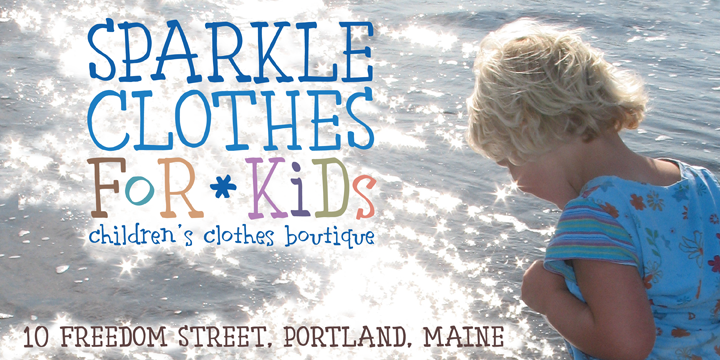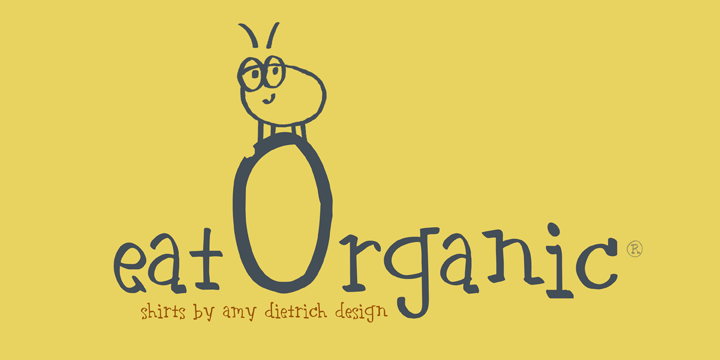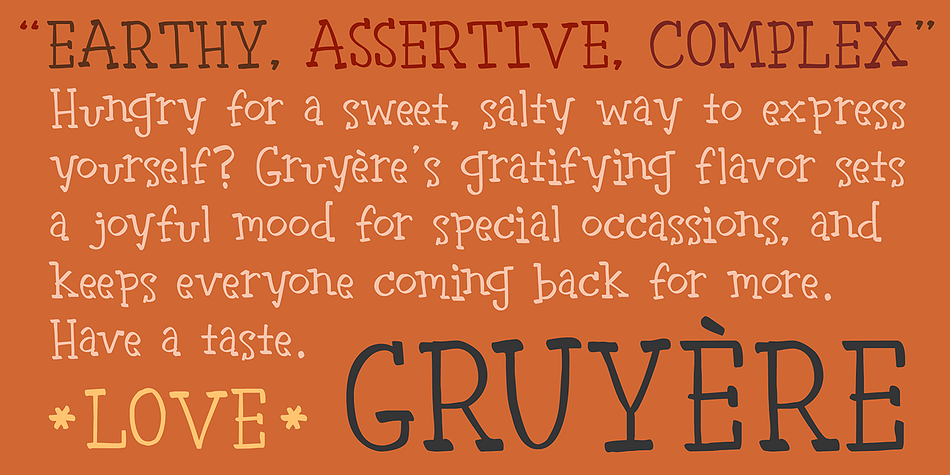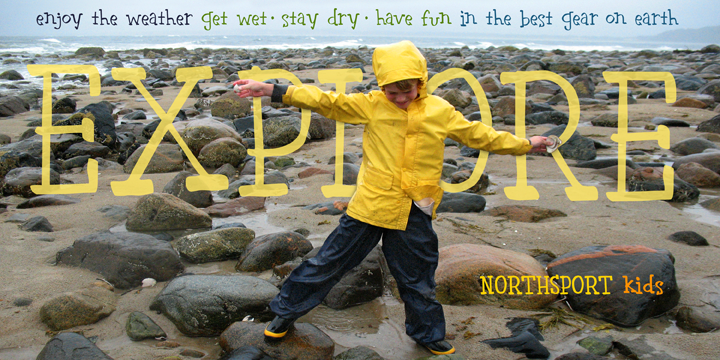
Gruyere is a hand drawn, display slab and kids font published by Atlantic Fonts.
Gruyère is rich with character and always in good taste. Earthy and assertive, Gruyère adds distinctive flavor to every occasion.